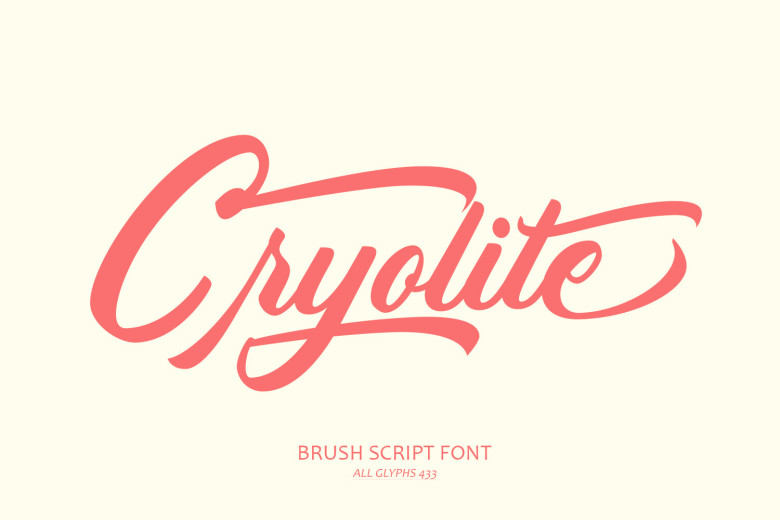
Cryolite Font
Cryolite, a dynamic typeface with expressive brush strokes that capture the essence of hand painting, makes an excellent choice for many design projects. Cryolite’s fluid strokes and spontaneous spontaneity gives an organic and lively aesthetic while brush script adds energy and movement – perfect for designs requiring dynamic expressive elements.
Cryolite Brush Script Font